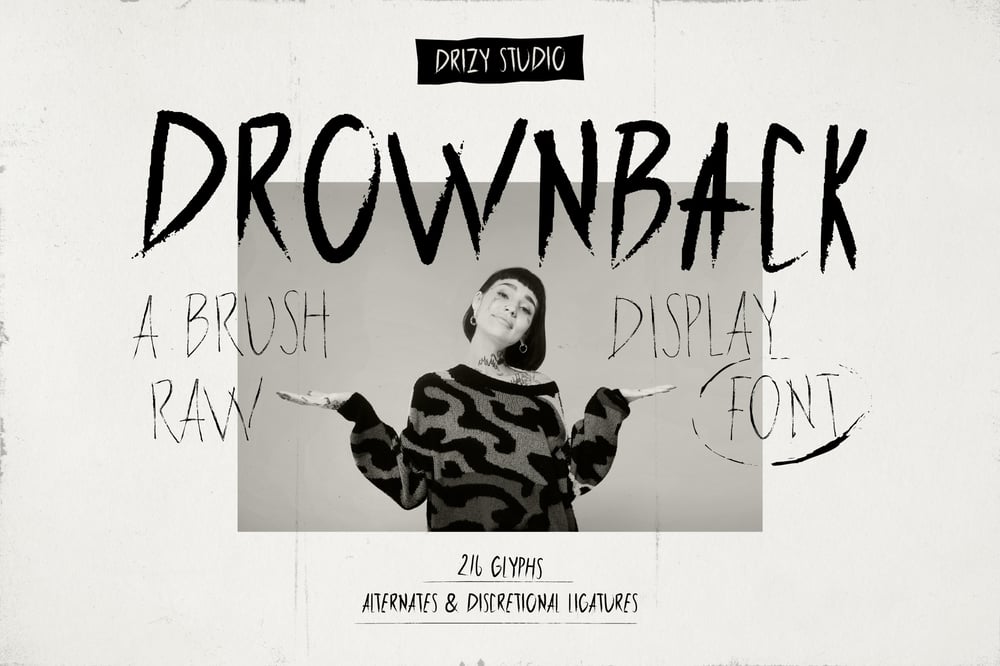
Drownback Font Family was designed by Panca Ahmadi Hasan and published by Drizy Font. Drownback contains 2 styles and family package options. Drownback โ Brush Raw Display FontUnleash the intensity of emotion with Drownback, a raw and captivating brush display font perfect for the Emo Romance aesthetic. Featuring bold, jagged strokes and an expressive hand-painted style, this font evokes a sense of passion, rebellion, and vulnerability. Ideal for album covers, event posters, zines, and other designs that demand a dramatic flair, Drownback captures the beauty in chaos. Let your words speak louder with Drownback, the font that wears its heart on its sleeve.Drownback โ Brush Raw Display Font features: Character Set (All Caps) Punctuation & Numbers Multilingual Bold & Thin Discretional Ligatures & Alternates Elevate and explore the design possibilities with this Emo Romance Font!